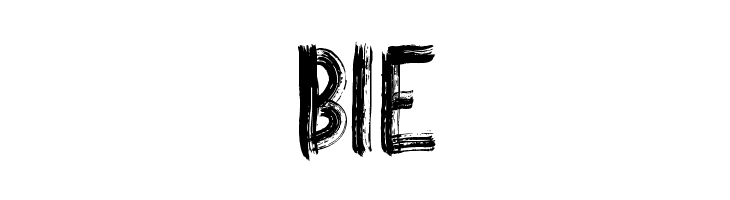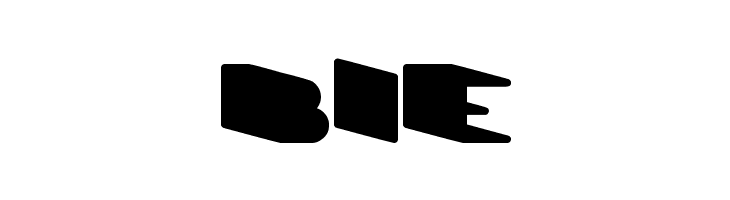
• GreatBush
A jagged, bushy font with a wild, untamed appearance.
• GREATEST VIEW
A bold, geometric font with a three-dimensional effect and retro appeal.
• GREATEST VIEW
A bold, angular font with a modern and dynamic style.
• Green Bee
A dynamic and energetic script font with fluid, cursive strokes.
• GREEN TEA
A bold, artistic font with sharp angles and a modern flair.
• Gregori
( Fonts by Ditya Ananto )
An edgy, barbed wire-inspired decorative font with sharp, angular lines.
• Gresan - Personal Use Only
A bold, dynamic serif font with a modern twist.
• Groothe
( Fonts by Storytype Studio )
A bold, playful font with a unique, rounded style and dynamic curves.
• Gros
A bold, brushstroke font with an energetic and artistic style.